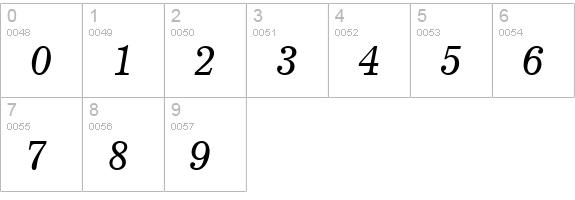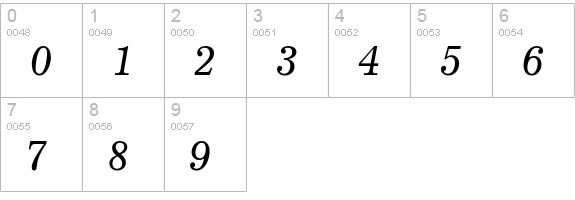
Lockup SSi Italic Font Details
Lockup SSi Italic is a distinctive, italic variant in the Lockup typeface family \xE2\x80\x94 well suited to design and typography projects.
Lockup SSi Italic font is a sleek and modern typeface that exudes elegance and sophistication. Its slanted italic style adds a touch of flair to any design project, making it perfect for use in headings, titles, and logos. The font features clean lines and sharp edges, creating a polished and professional look. What sets Lockup SSi Italic font apart is not just its aesthetics, but also its accessibility. This font is available for free download at FontsMarket.com, making it a valuable resource for designers and creatives looking to add a touch of style to their work without breaking the bank. Whether you're working on a branding project, a website design, or any other creative endeavor, Lockup SSi Italic font is sure to elevate your work and leave a lasting impression.